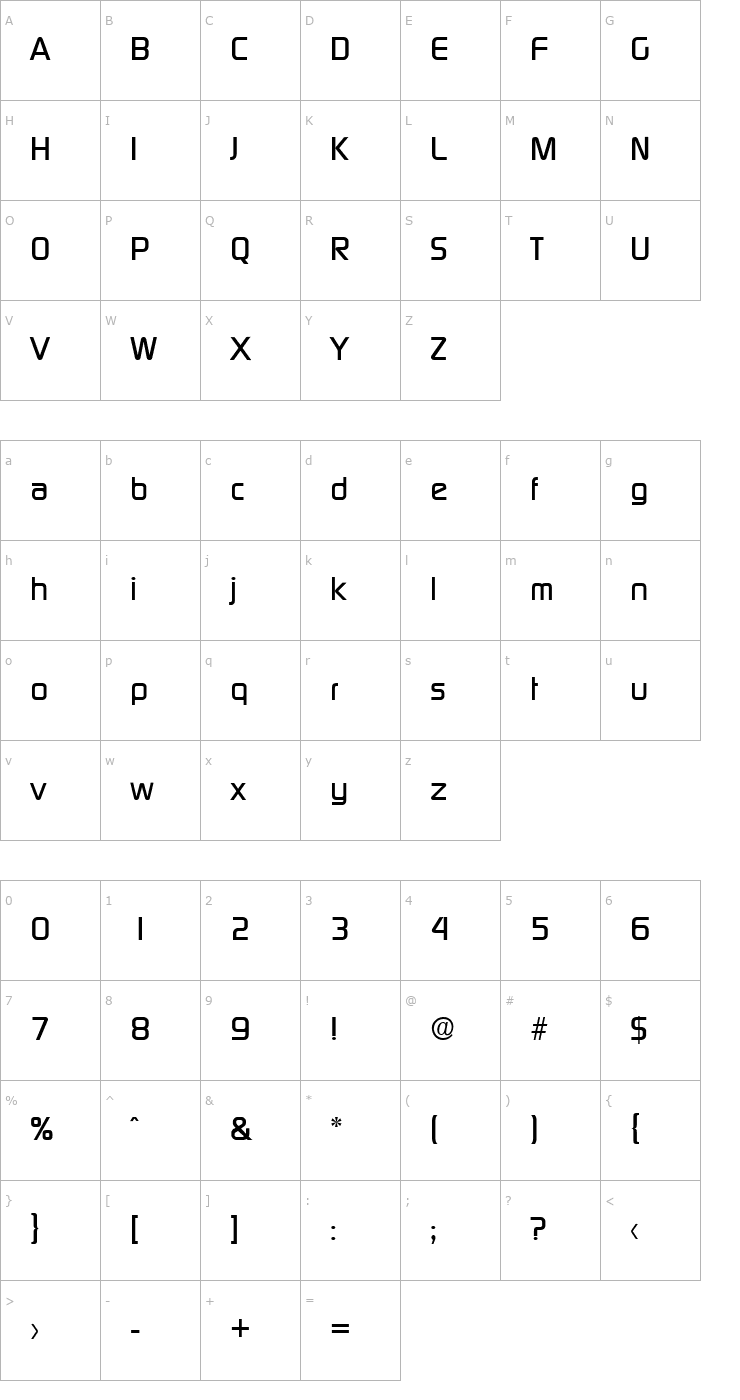
Digital Serial Font . Digital serial contains 6 styles and family package options. Installable on pc, mac, linux, ios, and android platforms. Discover an amazing selection of free digital fonts that will elevate your designs to the next level. Discover the free digital serial bold font at free font download ! Digital serial font family was designed by published by softmaker. Installable on pc, mac, linux, ios, and android platforms. From modern to vintage, script to serif, there's something for everyone. Discover the free digital serial regular font at free font download ! Digital serial is a sans serif font family.
Discover the free digital serial bold font at free font download ! From modern to vintage, script to serif, there's something for everyone. Installable on pc, mac, linux, ios, and android platforms. Digital serial contains 6 styles and family package options. Digital serial font family was designed by published by softmaker. Digital serial is a sans serif font family. Installable on pc, mac, linux, ios, and android platforms. Discover an amazing selection of free digital fonts that will elevate your designs to the next level. Discover the free digital serial regular font at free font download !
Digital Serial Font Discover the free digital serial regular font at free font download ! Digital serial is a sans serif font family. Digital serial contains 6 styles and family package options. Discover an amazing selection of free digital fonts that will elevate your designs to the next level. Installable on pc, mac, linux, ios, and android platforms. Discover the free digital serial bold font at free font download ! From modern to vintage, script to serif, there's something for everyone. Discover the free digital serial regular font at free font download ! Digital serial font family was designed by published by softmaker.
Digital Display Font Download Digital Serial Font Digital serial font family was designed by published by softmaker. Digital serial contains 6 styles and family package options. Installable on pc, mac, linux, ios, and android platforms. From modern to vintage, script to serif, there's something for everyone. Digital serial is a sans serif font family. Discover the free digital serial regular font at free font download ! Installable. Digital Serial Font.
DigitalSerial Bold Download for free at Free Fonts Digital Serial Font Discover an amazing selection of free digital fonts that will elevate your designs to the next level. Discover the free digital serial regular font at free font download ! Digital serial font family was designed by published by softmaker. From modern to vintage, script to serif, there's something for everyone. Digital serial contains 6 styles and family package options. Installable. Digital Serial Font.
DigitalSerial Font download free Digital Serial Font Digital serial is a sans serif font family. Installable on pc, mac, linux, ios, and android platforms. Digital serial contains 6 styles and family package options. Discover the free digital serial bold font at free font download ! Discover the free digital serial regular font at free font download ! Discover an amazing selection of free digital fonts that will. Digital Serial Font.
Digital font Royalty Free Vector Image VectorStock Digital Serial Font Digital serial is a sans serif font family. Discover the free digital serial regular font at free font download ! From modern to vintage, script to serif, there's something for everyone. Installable on pc, mac, linux, ios, and android platforms. Digital serial contains 6 styles and family package options. Discover the free digital serial bold font at free font download. Digital Serial Font.
Digital Serial Font Discover the free digital serial regular font at free font download ! Installable on pc, mac, linux, ios, and android platforms. Digital serial font family was designed by published by softmaker. Digital serial is a sans serif font family. Installable on pc, mac, linux, ios, and android platforms. From modern to vintage, script to serif, there's something for everyone. Digital. Digital Serial Font.